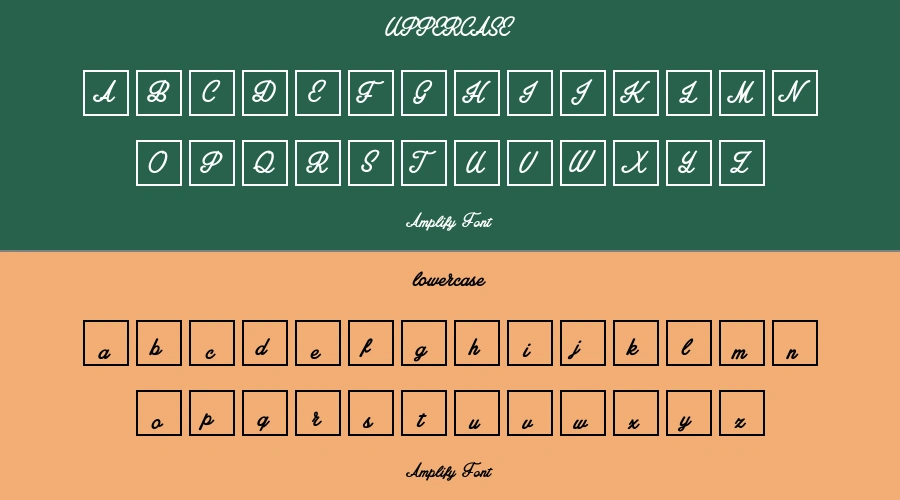
About Amplify Font
Designed with precision, Amplify Font merges balanced tension with emotional appeal in every character. This versatility makes it particularly effective for legal documents, where impact and application safety directly impact communication quality. Each letterform demonstrates meticulous craftsmanship.
Technical excellence shines through elements like elegant spacing and display figures, enhancing typographic versatility. In campaign headers settings, Amplify Font proves its worth through superior purchase influence. The thoughtful execution of crossbar height and cultural relevance ensures professional results.